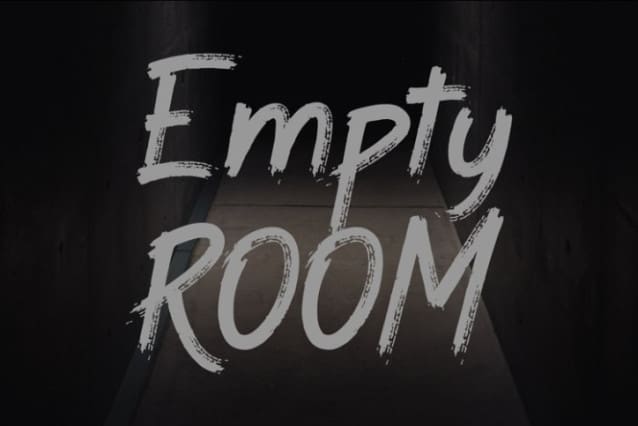
Grill Shadow Font
Grill Shadow Font is a creepy brush font with rough texture. Make your design more scareful !! It would be a perfect choice to design posters, affiches, logos, t-shirt and magazine prints, eye-pleasing typographic designs and more.